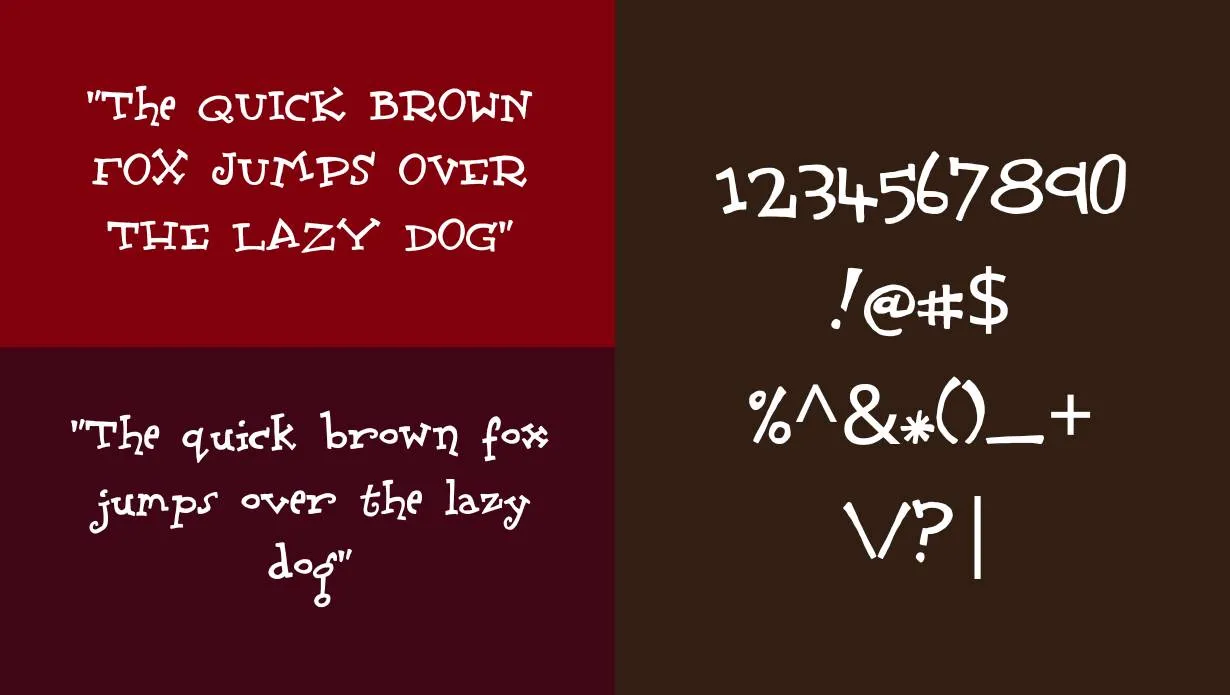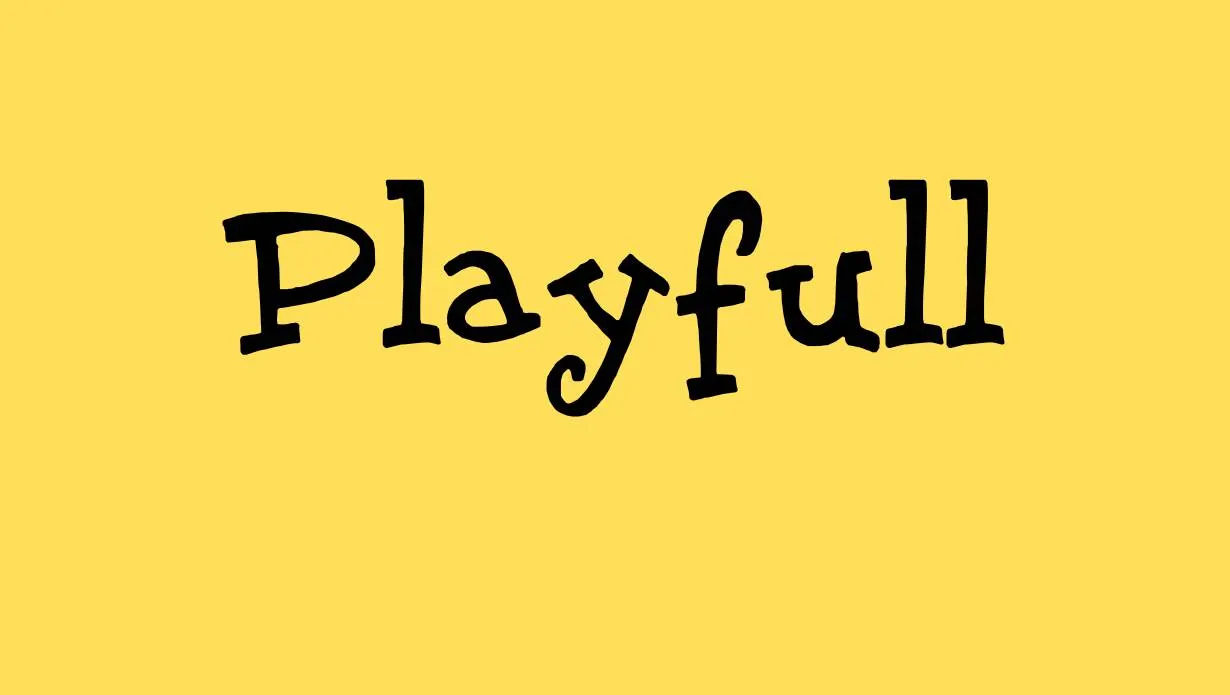
Uddi Uddi created Scrubadoo Font which is a nice fancy typeface. A glamorous font with multiple kinds of styles, numerals, lining, and text figures. With all the bold letters in this font family, your design will look more sophisticated and classier.
It may also be used to create elegant designs, which are ideal for many designers to use in their artwork, among other things. This contemporary typeface can be used for newspaper text designs and text-style collections.
Scrubadoo Font Family